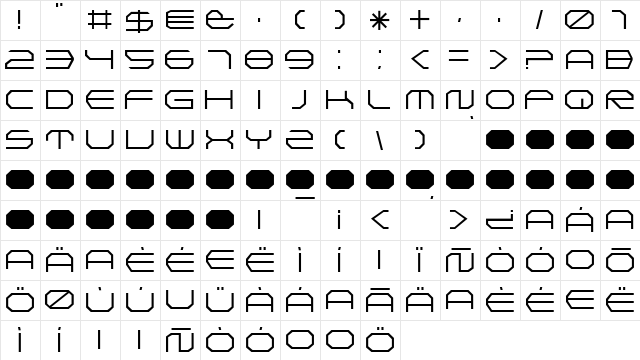
TRACK Normal Font Preview
TRACK Normal
Design Context for TRACK Typeface
TRACK is a composed and adaptable typeface that performs quietly and consistently across a wide range of design contexts.